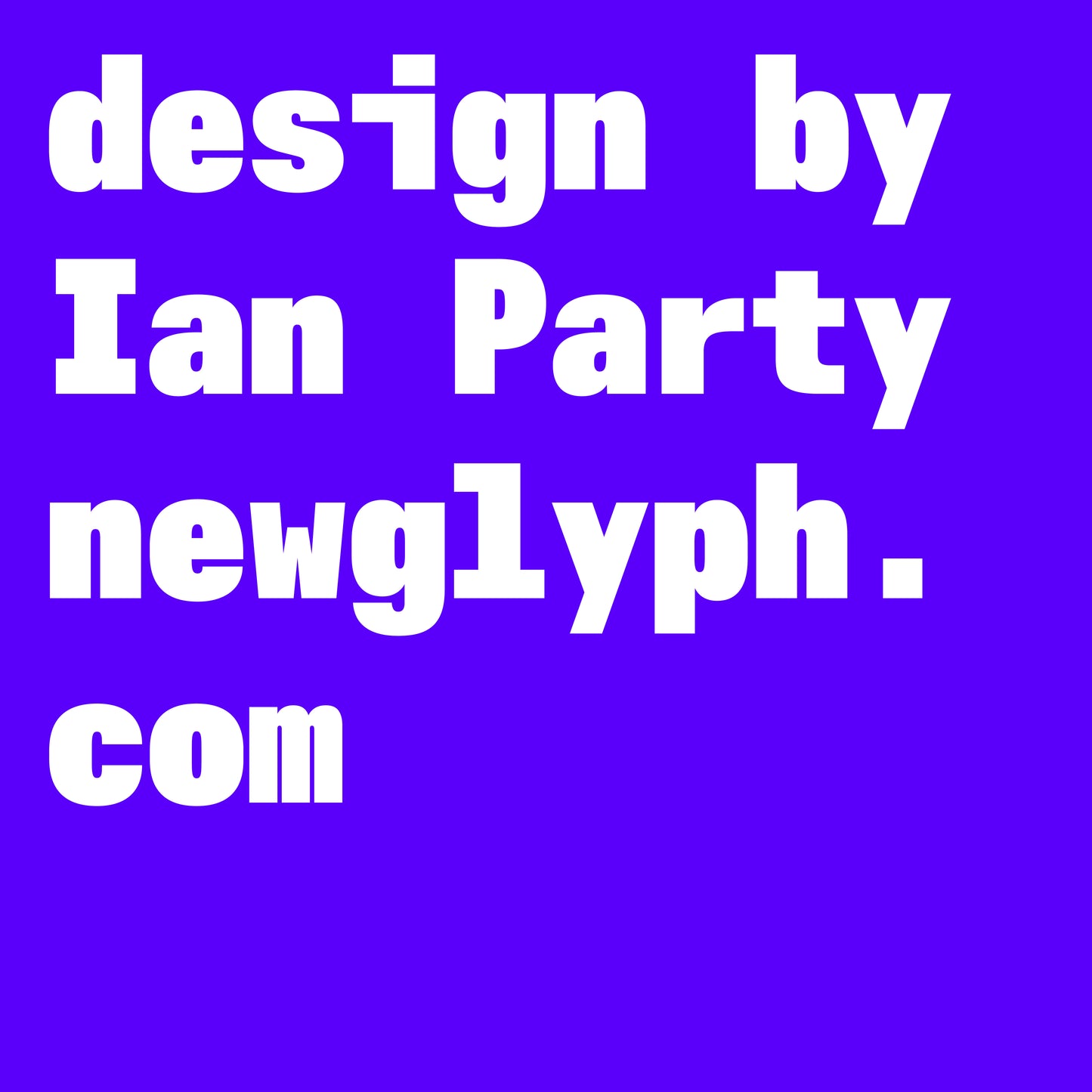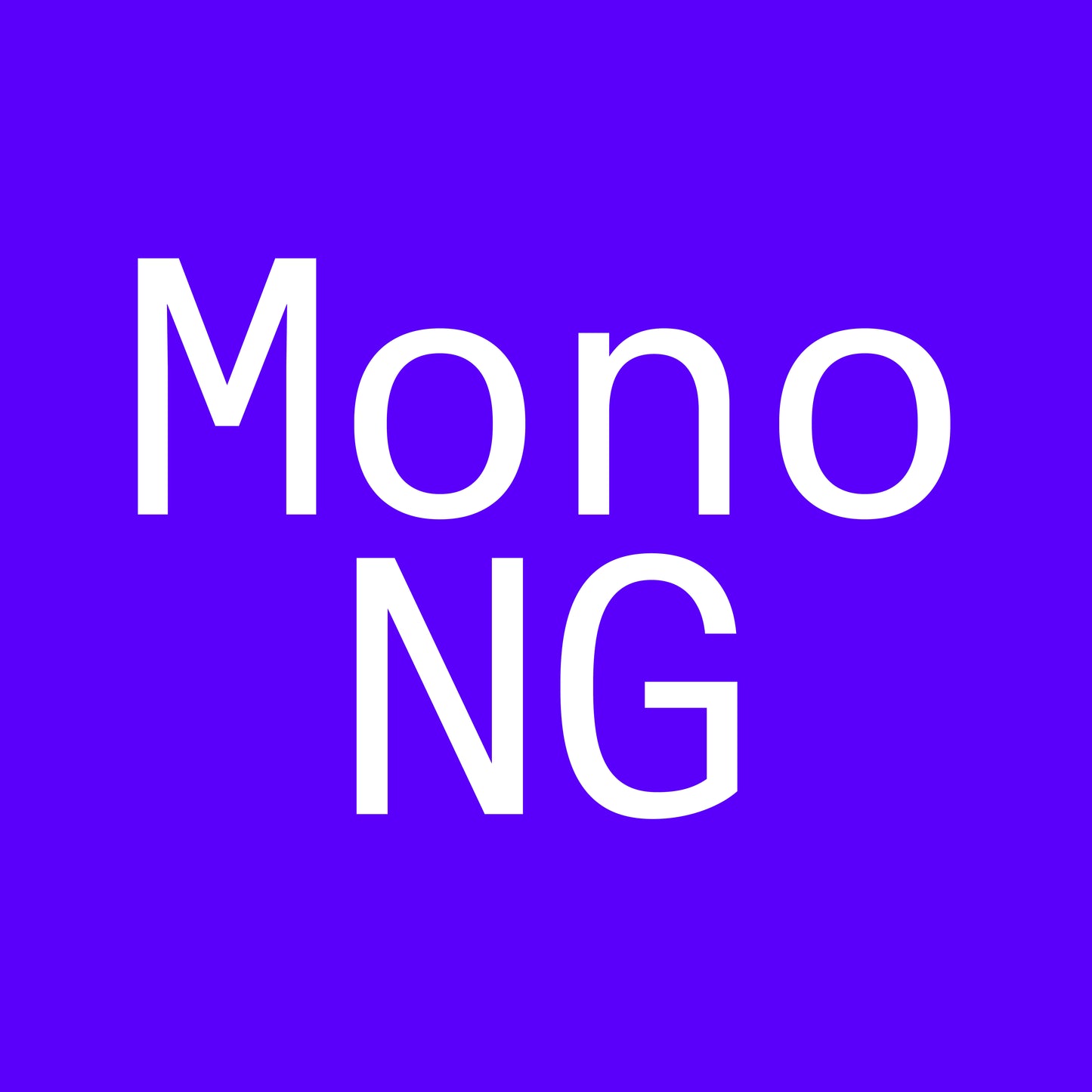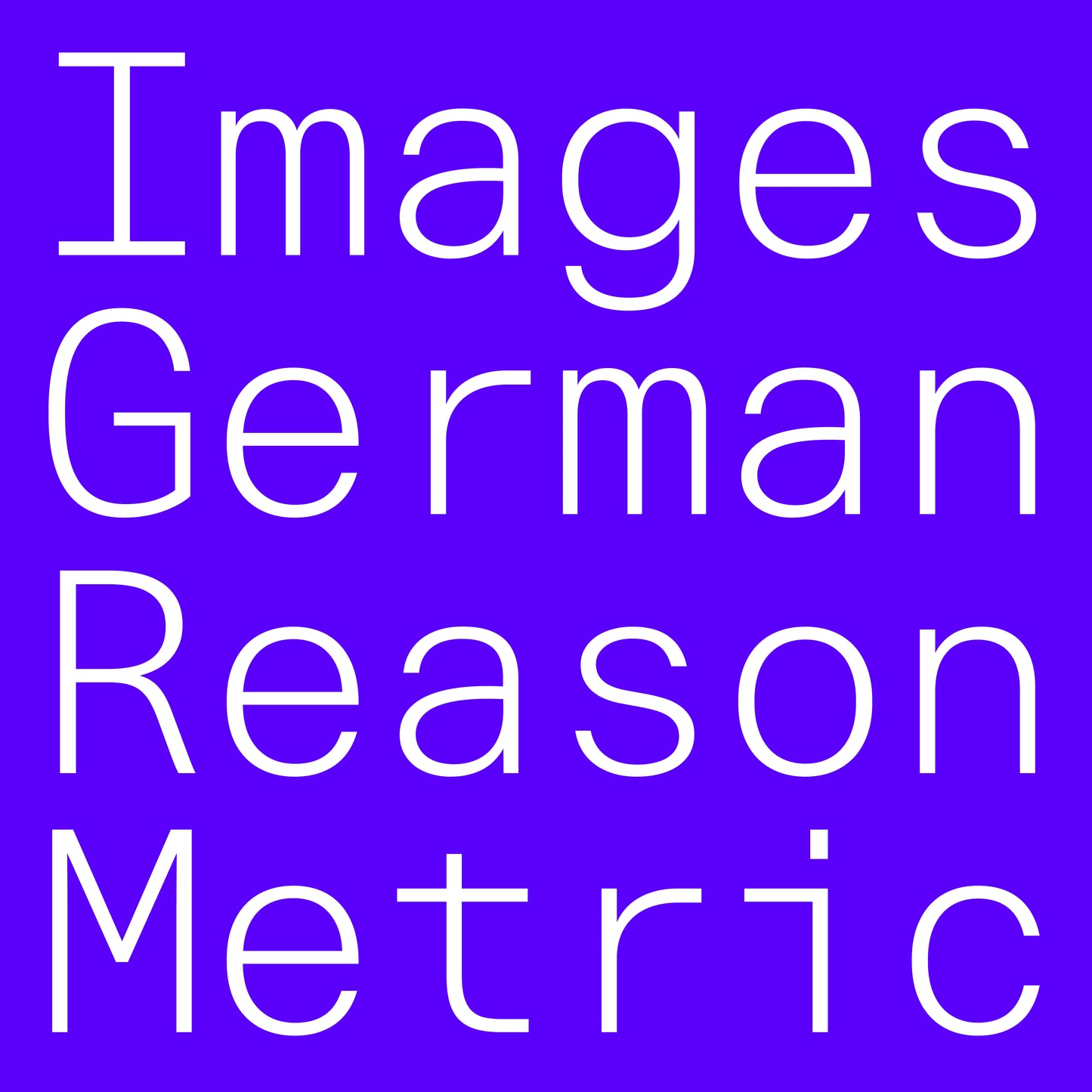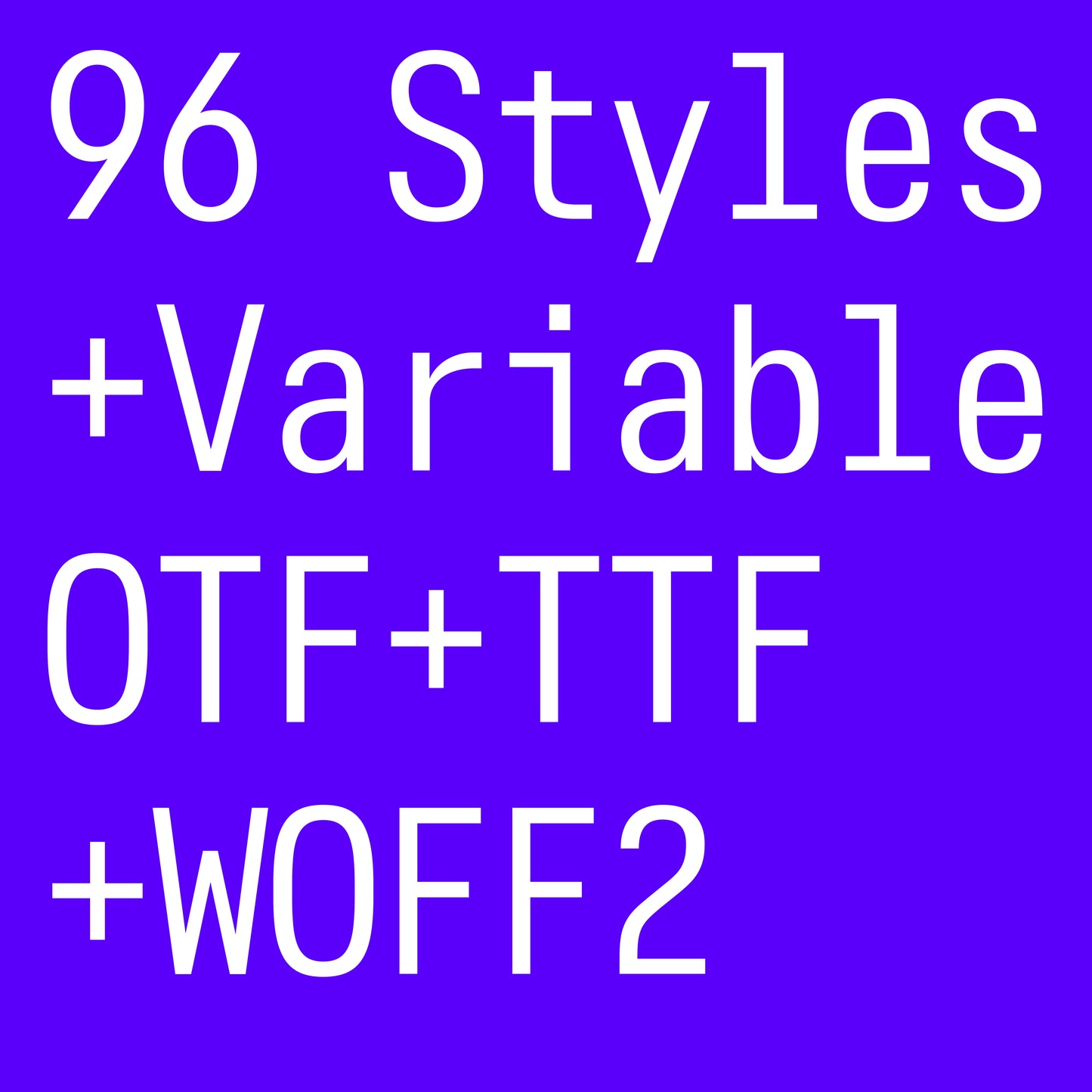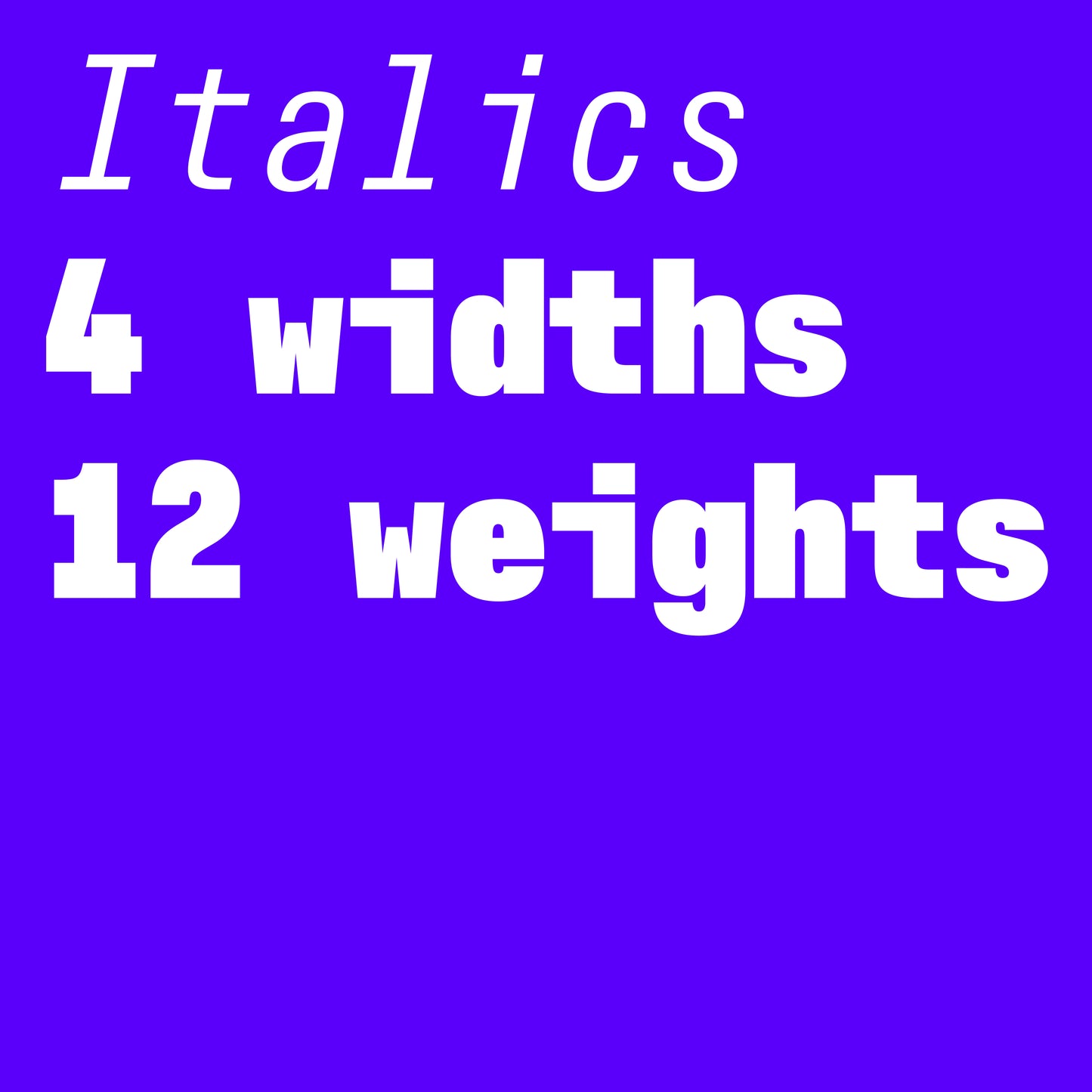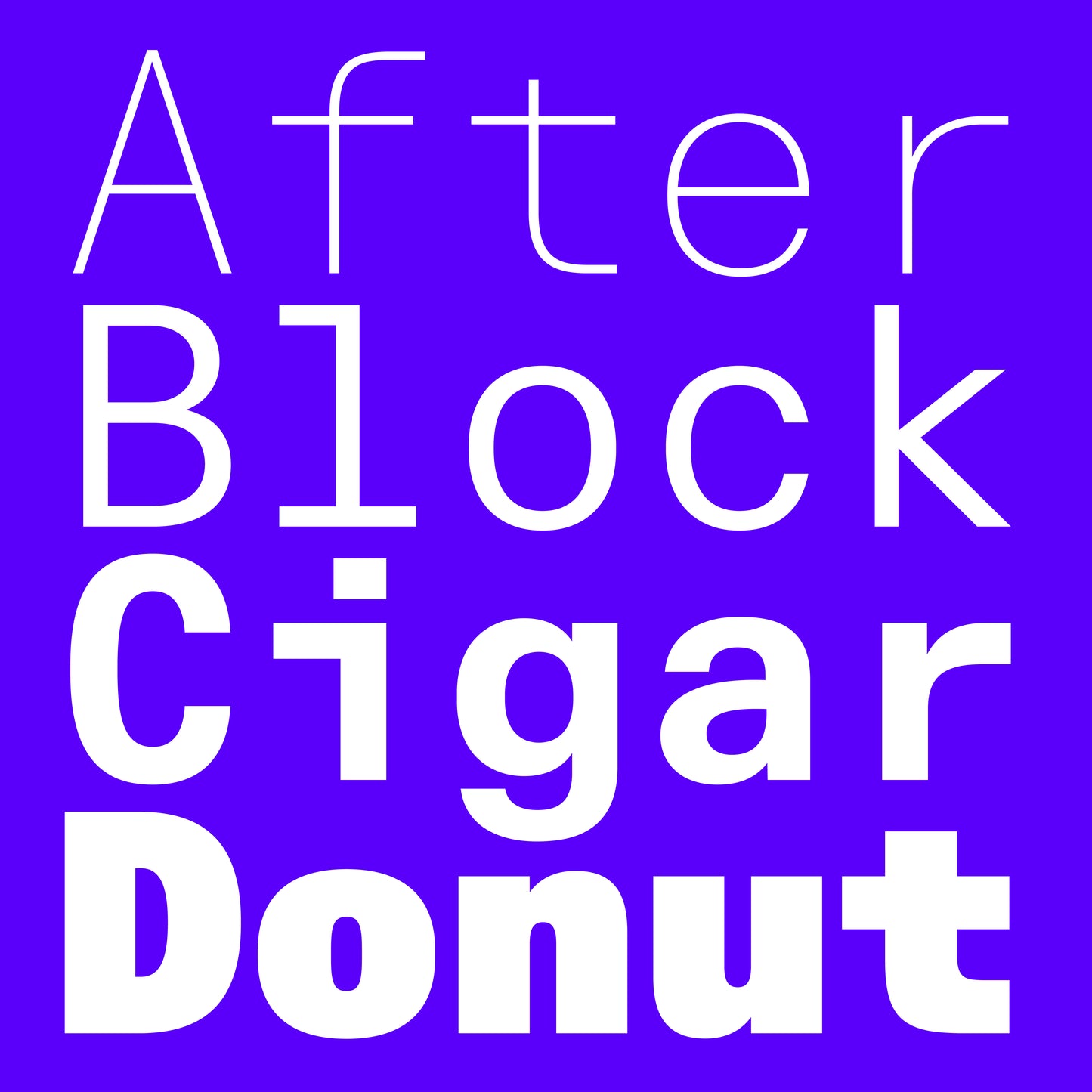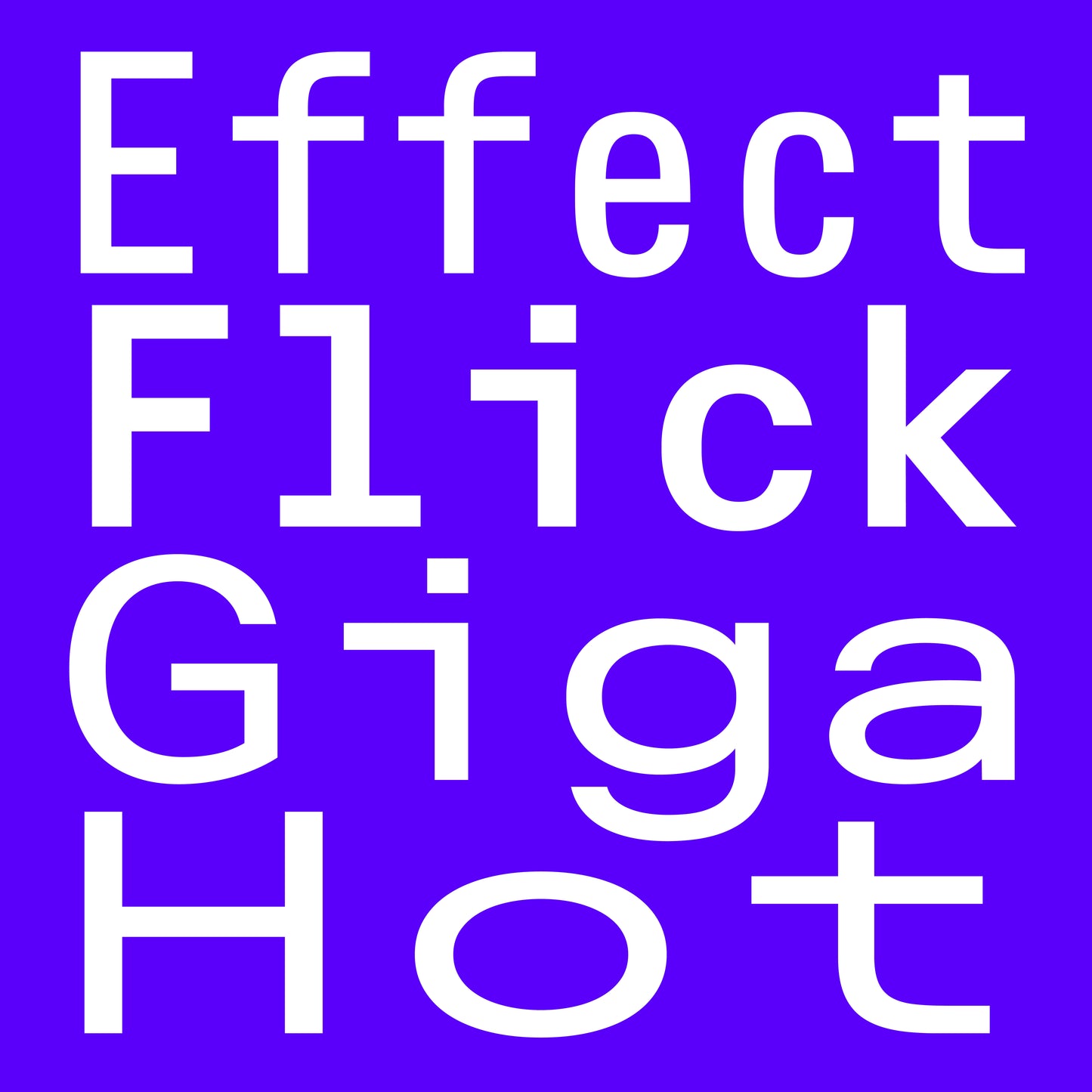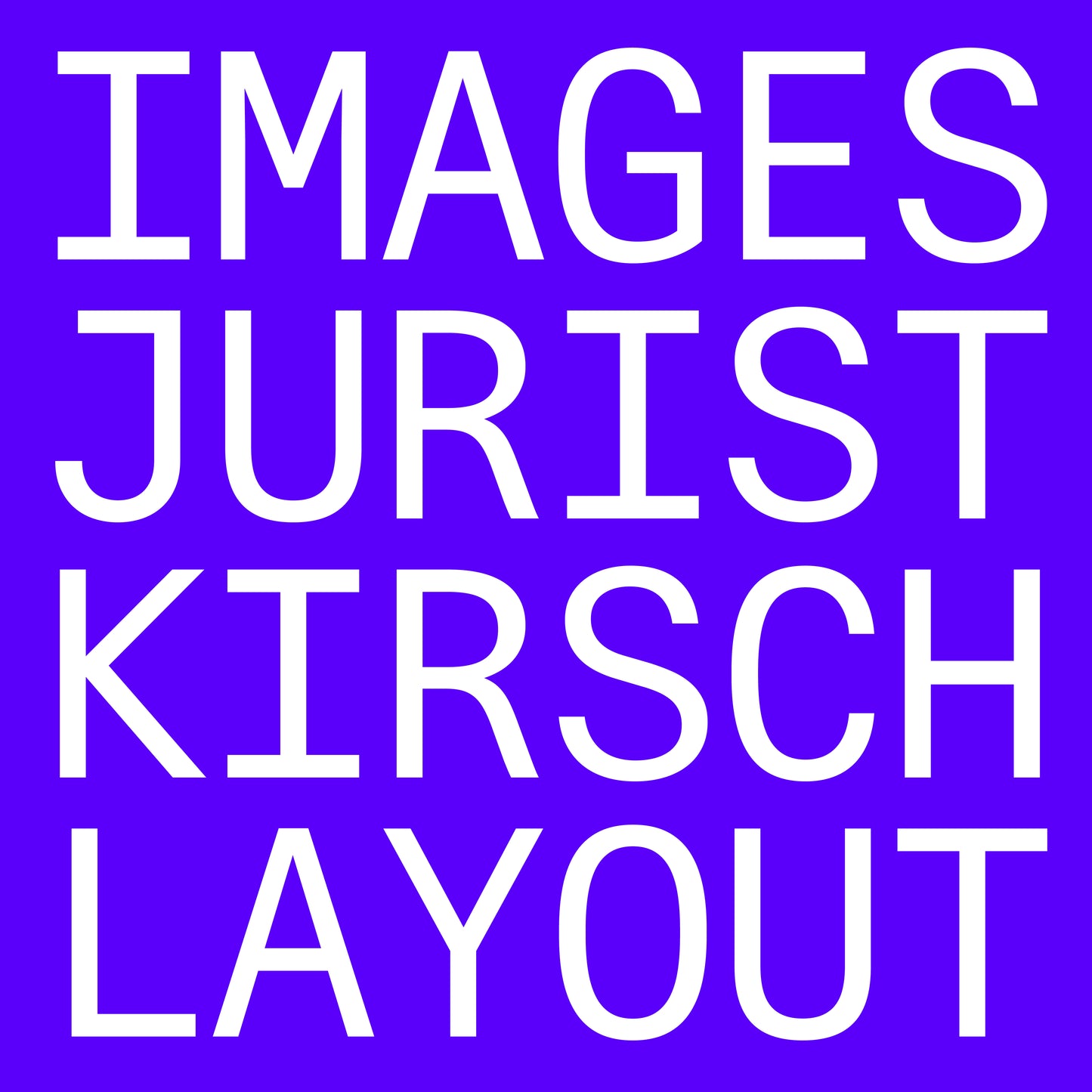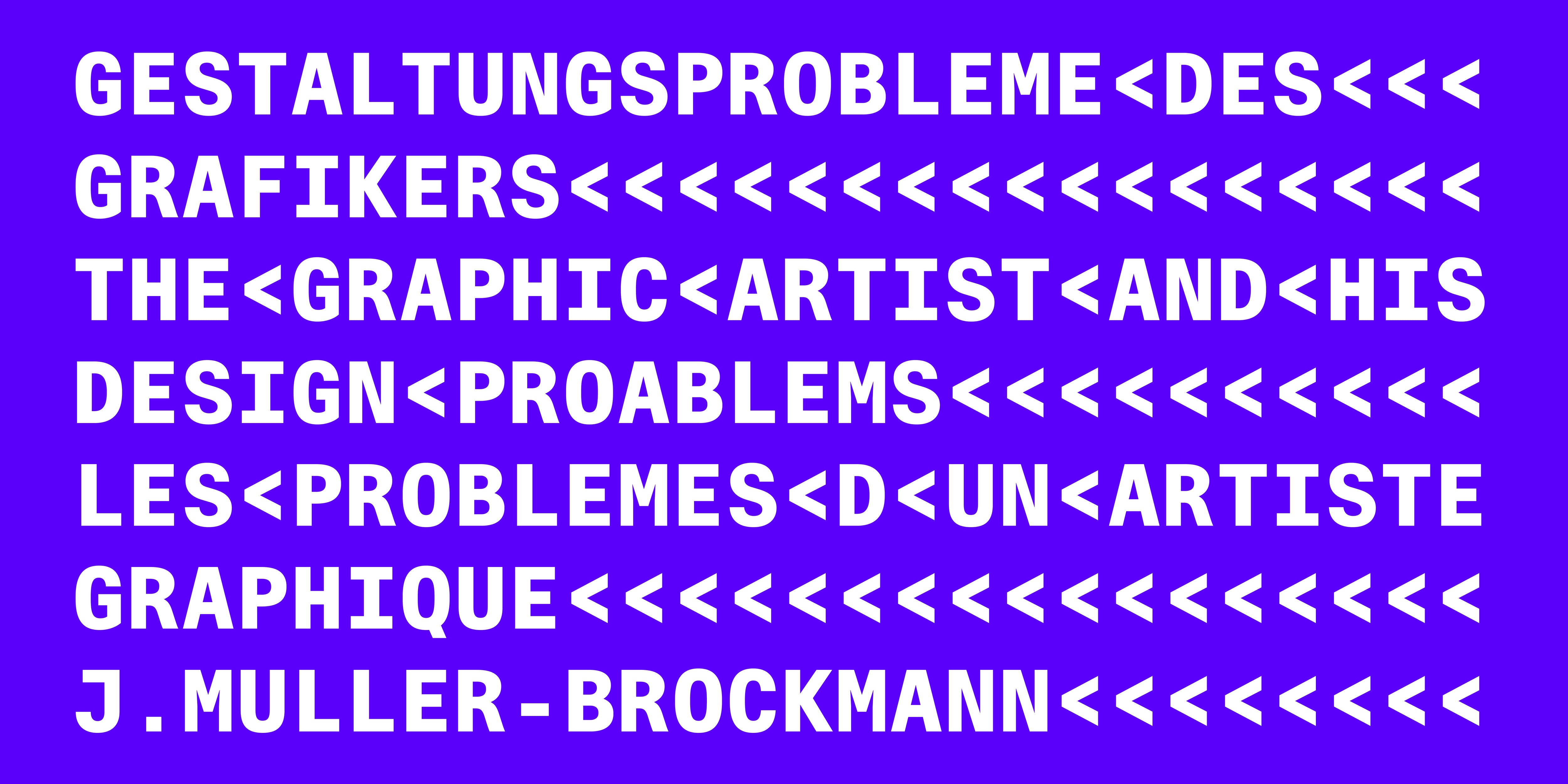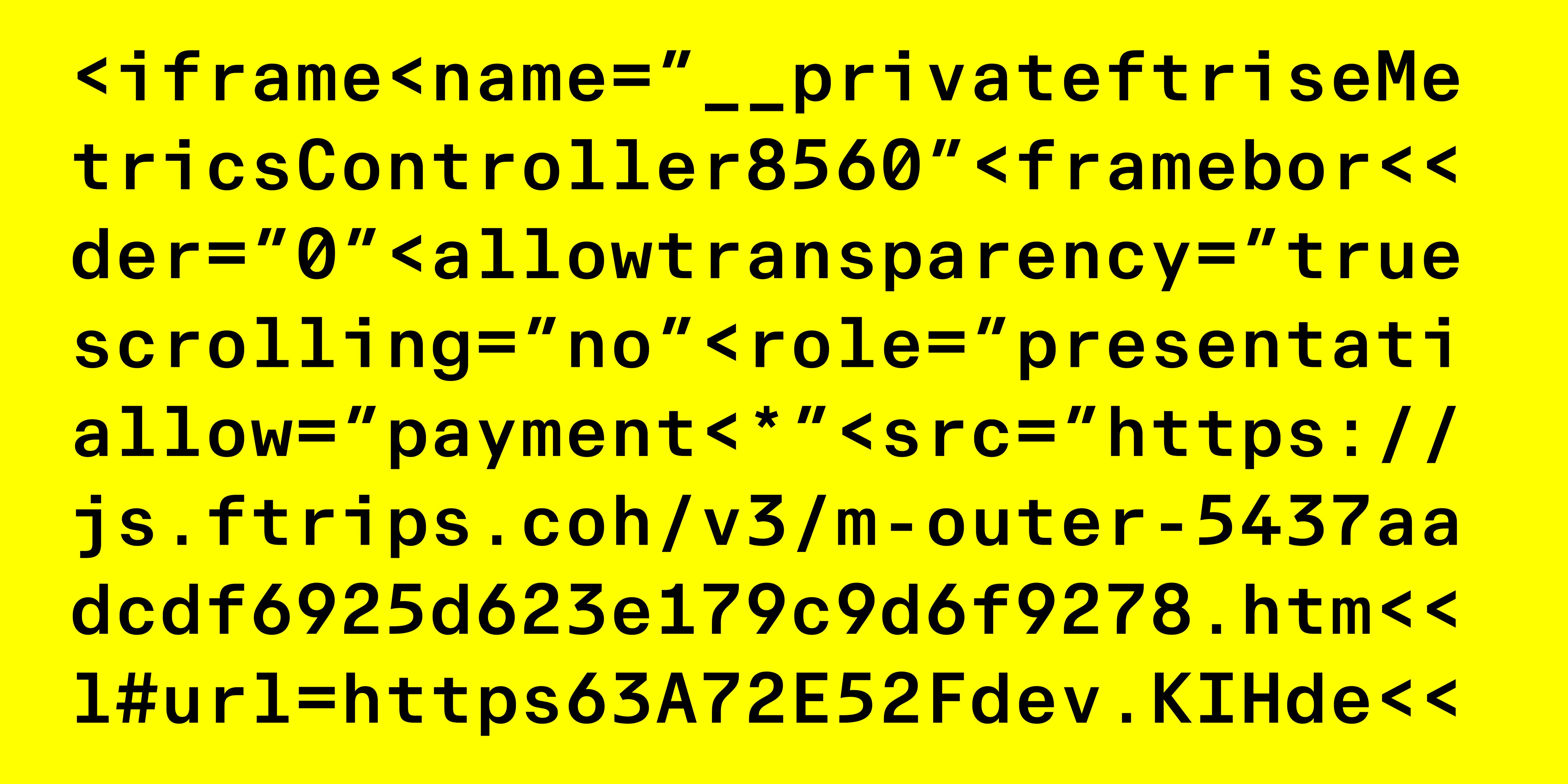
Mono NG
Mono NG, designed by Ian Party, is a variable monospace typeface that redefines the rigid conventions of monospaced typography with precision, adaptability, and bold creativity. Designed for designers, coders, and editorial visionaries, Mono NG balances technical functionality with aesthetic versatility, making it a dynamic tool for a new generation of creators.
Rooted in the history of typewriter and coding fonts, Mono NG echoes the structure of early monospaced typefaces while introducing a modern, expansive range of styles. Unlike traditional monospaced fonts that often feel rigid or mechanical, Mono NG is designed with a refined sense of proportion and fluidity, offering a fresh take on structured typography.
As a variable font, Mono NG provides unprecedented control over weight and width, allowing seamless customization to fit any project. With 44 styles, from Extra Condensed Hairline to Ultra Expanded Extra Black, it shifts effortlessly from sleek minimalism to bold, high-impact presence. This flexibility makes it perfect for branding, editorial layouts, web development, and digital interfaces where structure and style go hand in hand.
Whether you're crafting high-tech user interfaces, striking print layouts, or expressive typographic experiments, Mono NG is designed to meet the demands of contemporary design while staying true to its monospace roots.
— TOTAL STYLES : 96
— VARIABLE
— ITALICS
— REGULAR, CONDENSED, EXTENDED STYLES
— PUNCTUATION & SYMBOLS
— DIACRITICS & LIGATURES